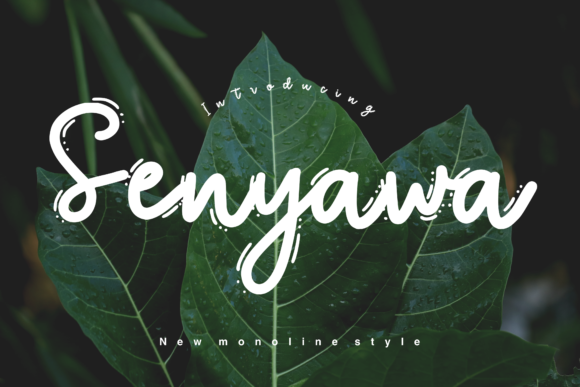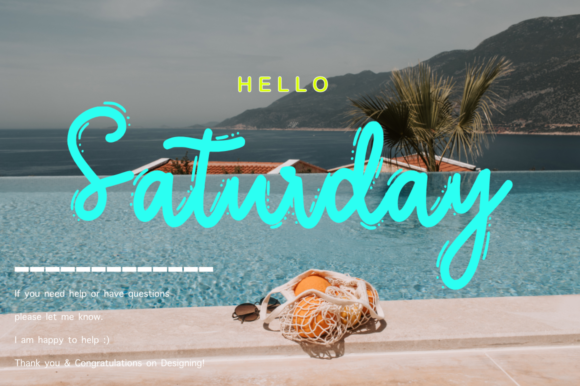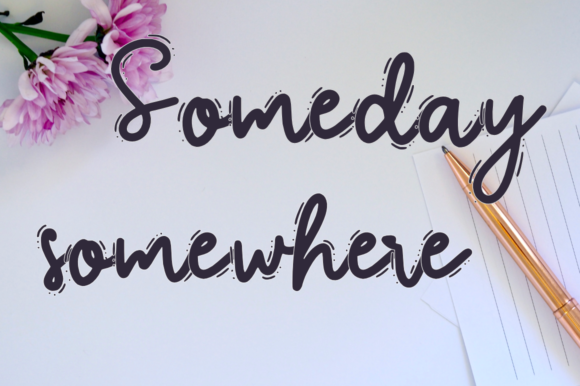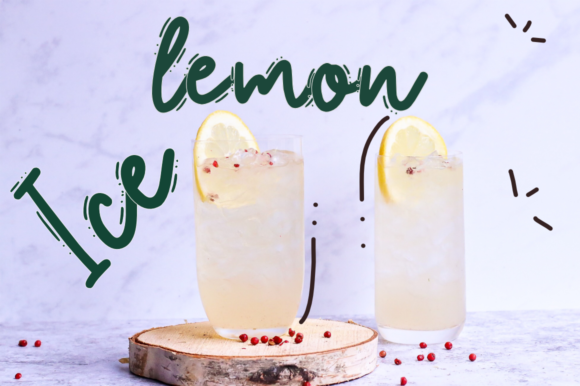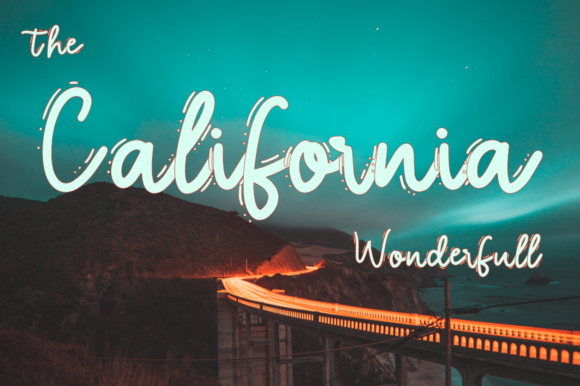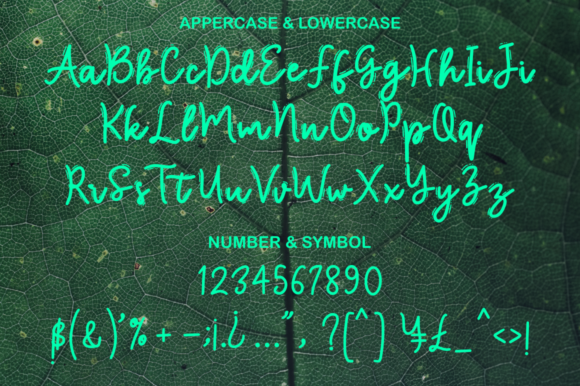
Introduction to Senyawa Font
Have you ever stared at a blank page, waiting for the perfect font to spark your creativity? For designers, this moment can be a constant struggle. But what if you stumbled upon a font that not only ignites your imagination but also adds a touch of uniqueness to your work? Enter the Senyawa Font, a high-quality, quirky handwritten font that’s perfect for bringing your creative projects to life.
As a valuable resource for designers, the Senyawa Font offers a free download option, making it accessible to anyone looking to elevate their design game. With its transparent background and versatile style, this font can be used for a wide range of projects, from blog posts and logos to invitations and photo albums. Whether you’re working on a personal or professional project, the Senyawa Font is an excellent addition to your design arsenal.
- High-quality design resource with a modern and creative touch, ideal for various projects.
- Designed with a focus on creative projects, Senyawa Font is perfect for branding, packaging, and advertising materials.
- Unique and stylish characters, making it an excellent addition to any design resource library.
Honest Review: Senyawa Font
I recently stumbled upon the Senyawa Font, and I must say it’s a fantastic addition to any designer’s toolkit. This free download has been a game-changer for my creative projects.
- ✨ The font features a unique and modern design, perfect for adding a touch of elegance to any project.
- ✨ The transparent background makes it easy to use in various design contexts.
- ⚠️ The font might not be suitable for projects requiring a large character set, as it’s a bit limited in that aspect.
- ⚠️ Some users might find the font a bit too modern or experimental for certain projects.
Overall, I’m thoroughly impressed with the Senyawa Font. Its high quality and unique design make it a valuable addition to any designer’s collection. It’s perfect for creative projects requiring a touch of sophistication and elegance. I would highly recommend it to anyone looking for a free and versatile design resource.
Tips for Getting the Most Out of Senyawa Font
Use Senyawa Font with a transparent background to create a unique and eye-catching design. Experiment with different font sizes and styles to add depth to your project.
Senyawa Font is suitable for various creative projects, including:
Yes, Senyawa Font is designed to be high-quality and suitable for print projects. It includes features such as transparent background and high-resolution glyphs, making it perfect for business cards, brochures, and other marketing materials.